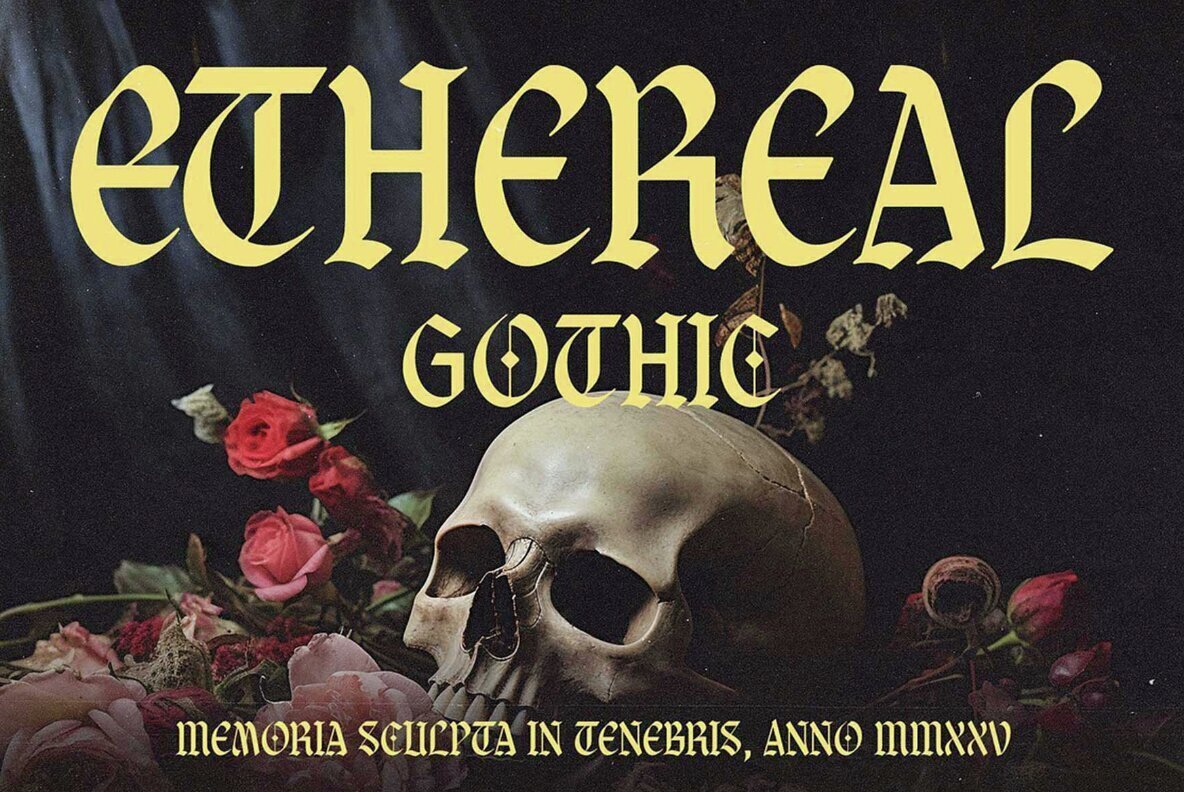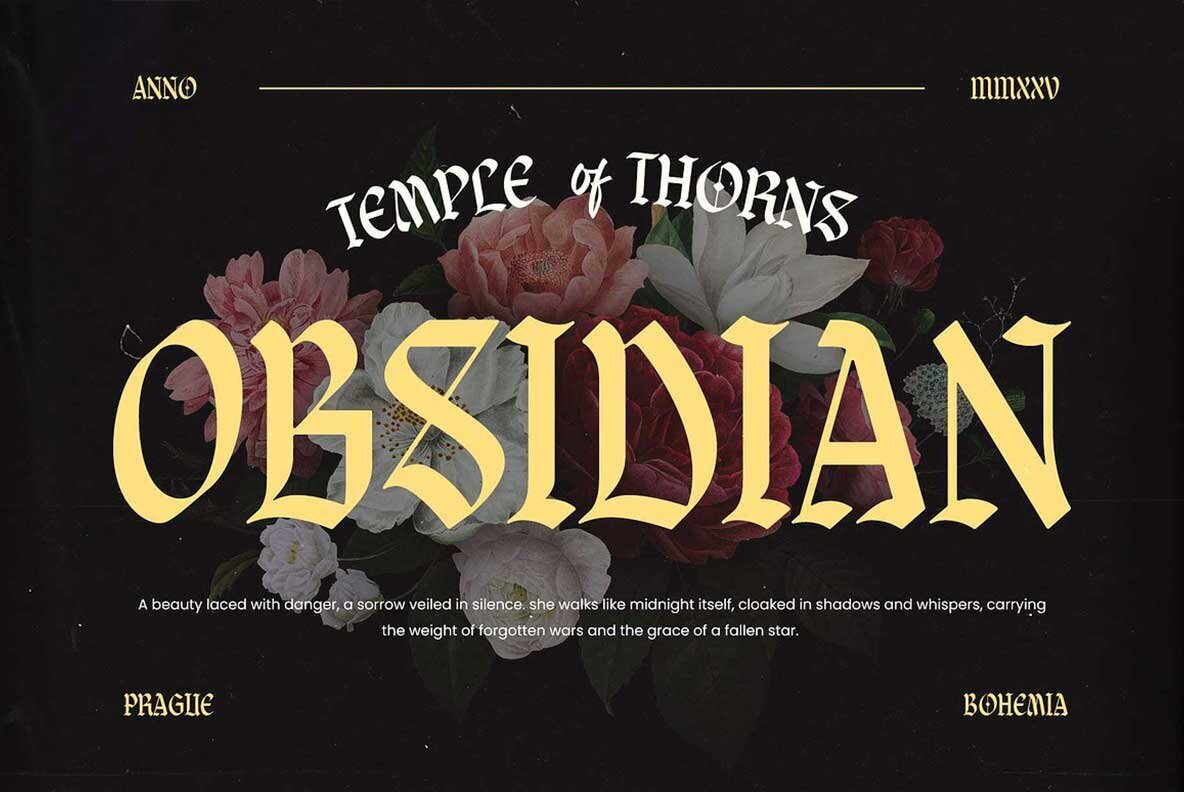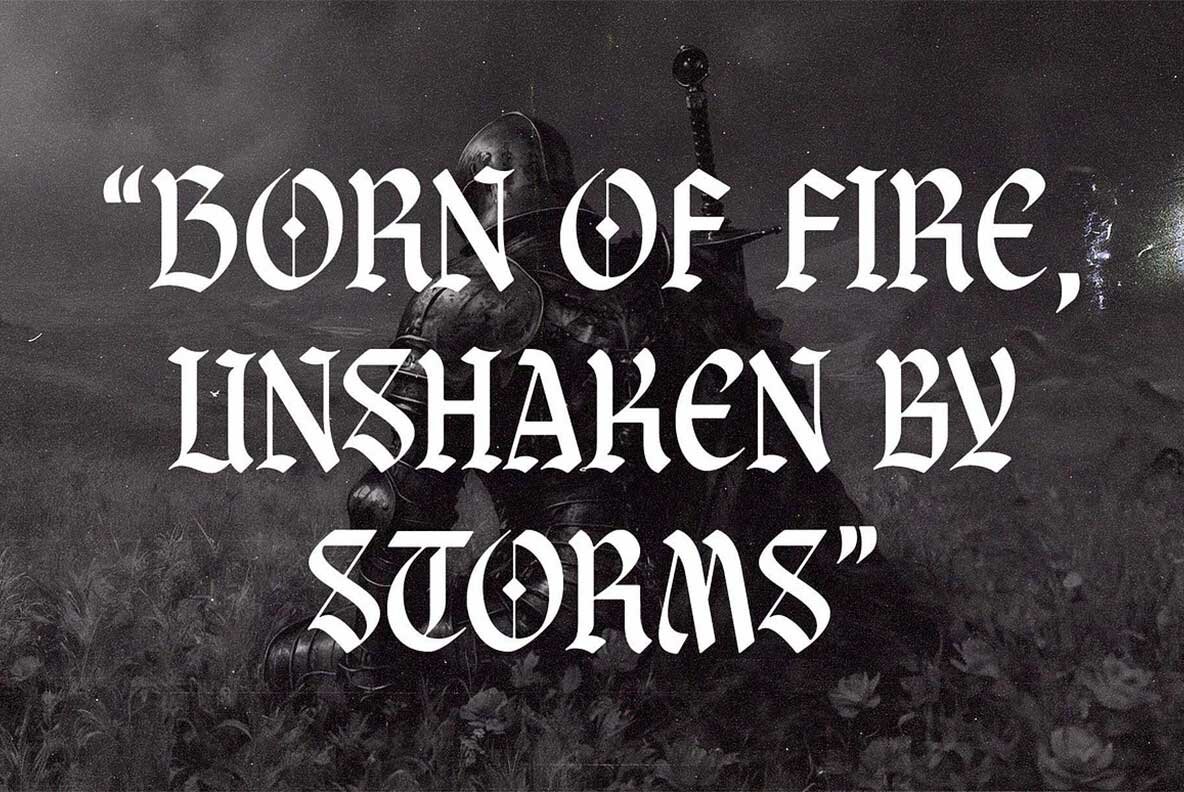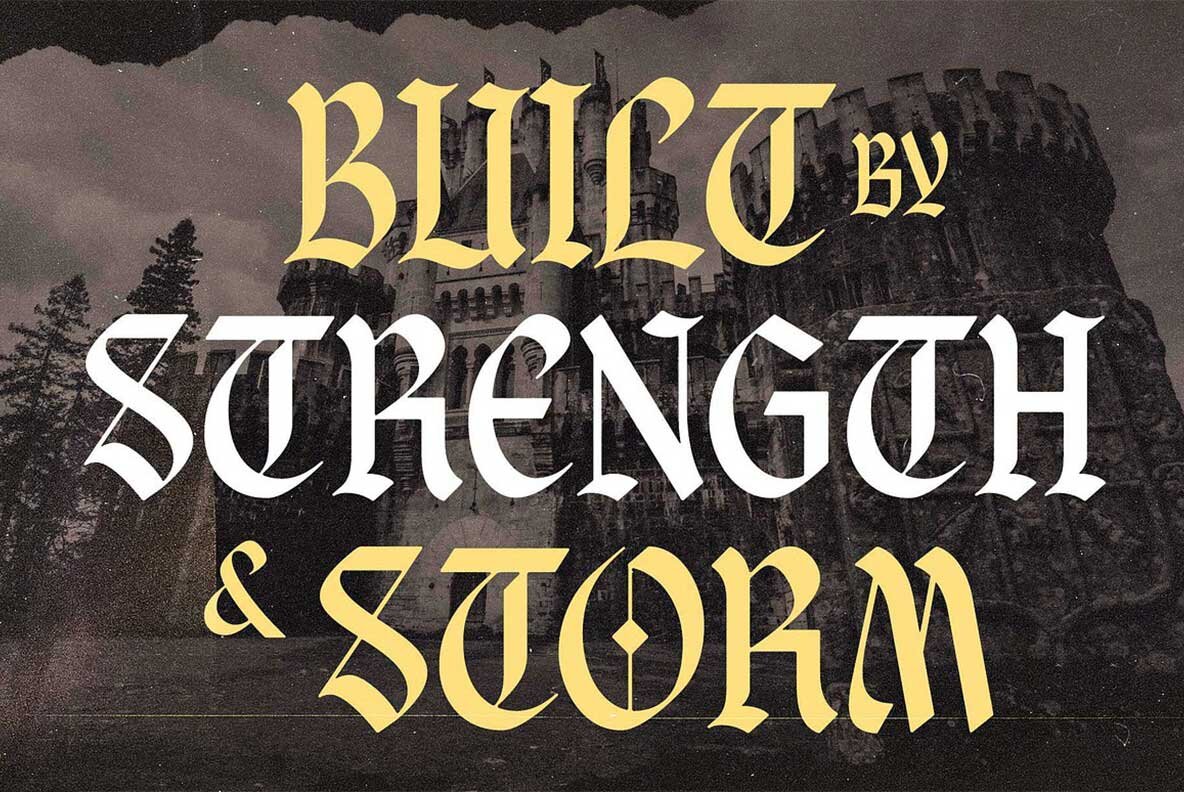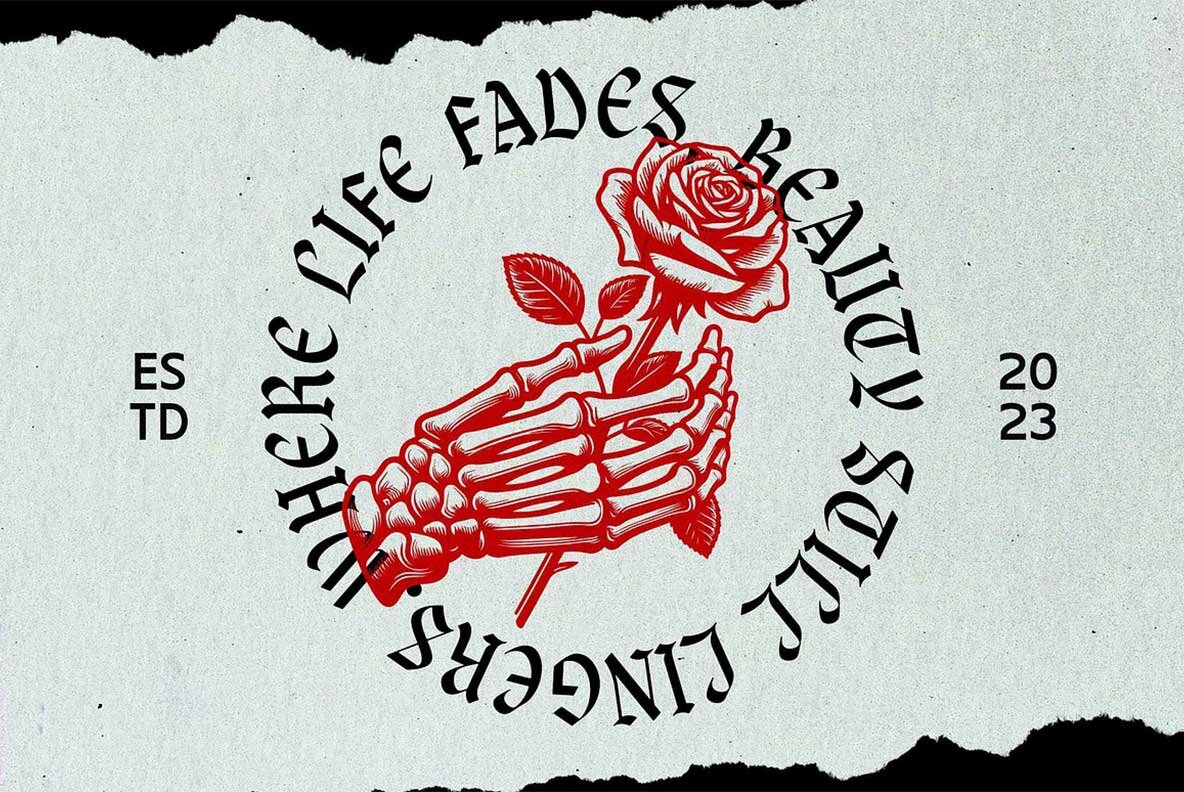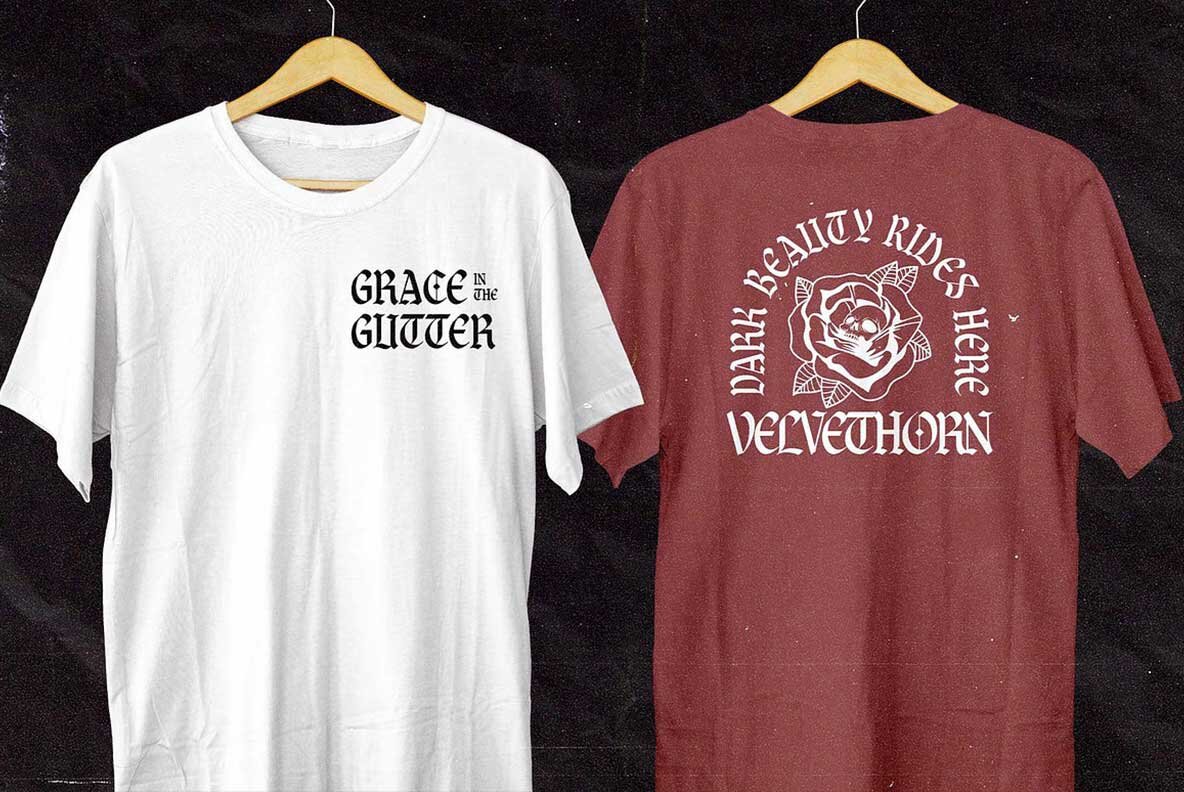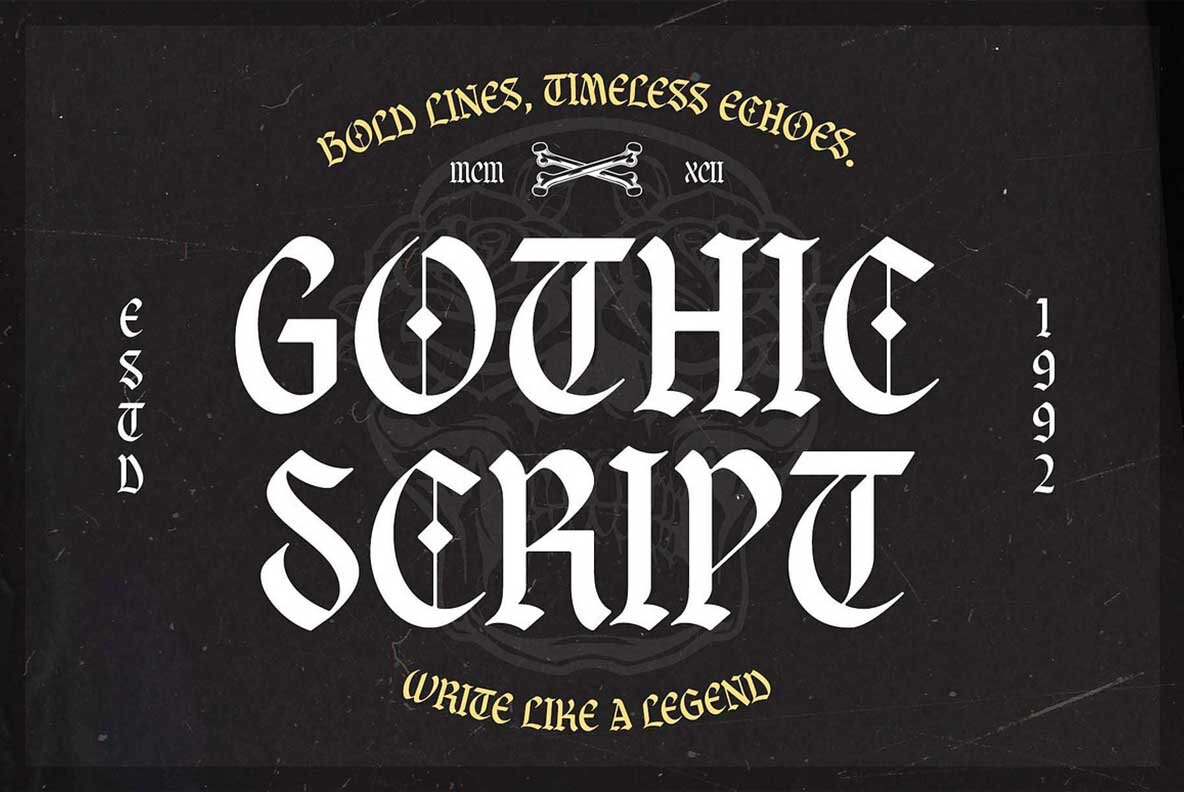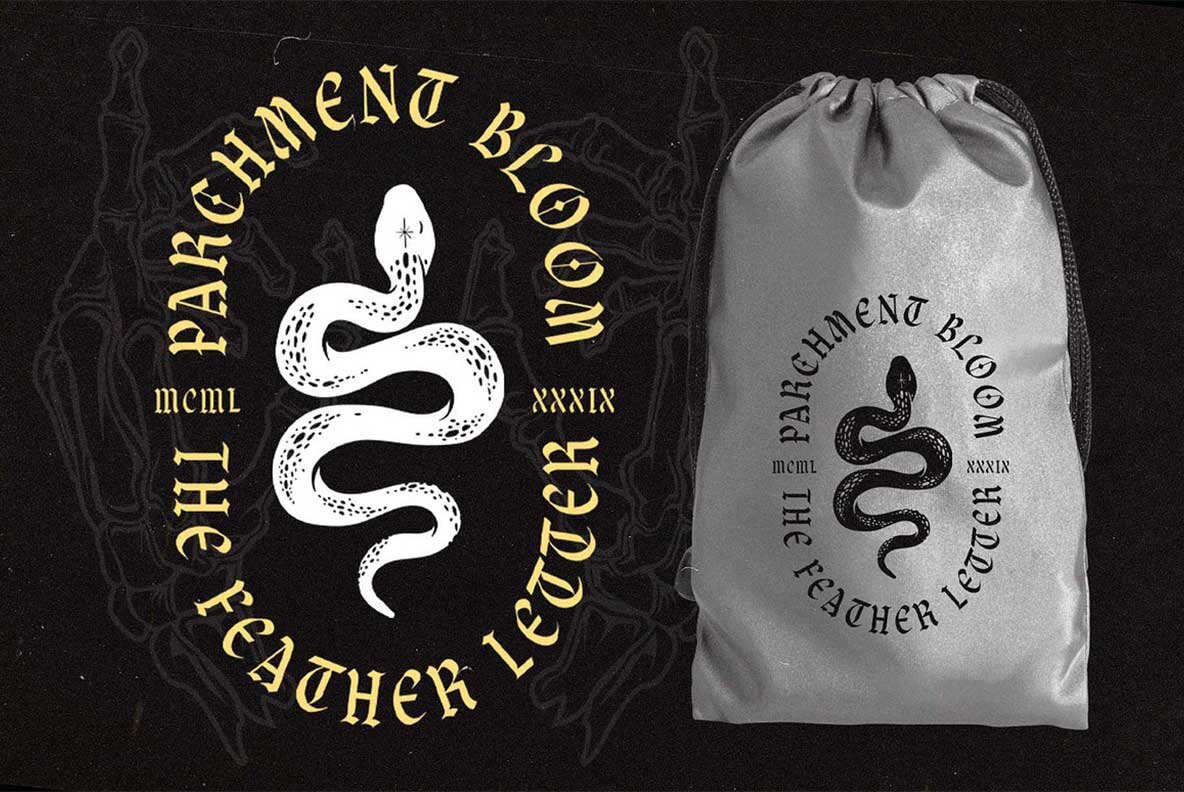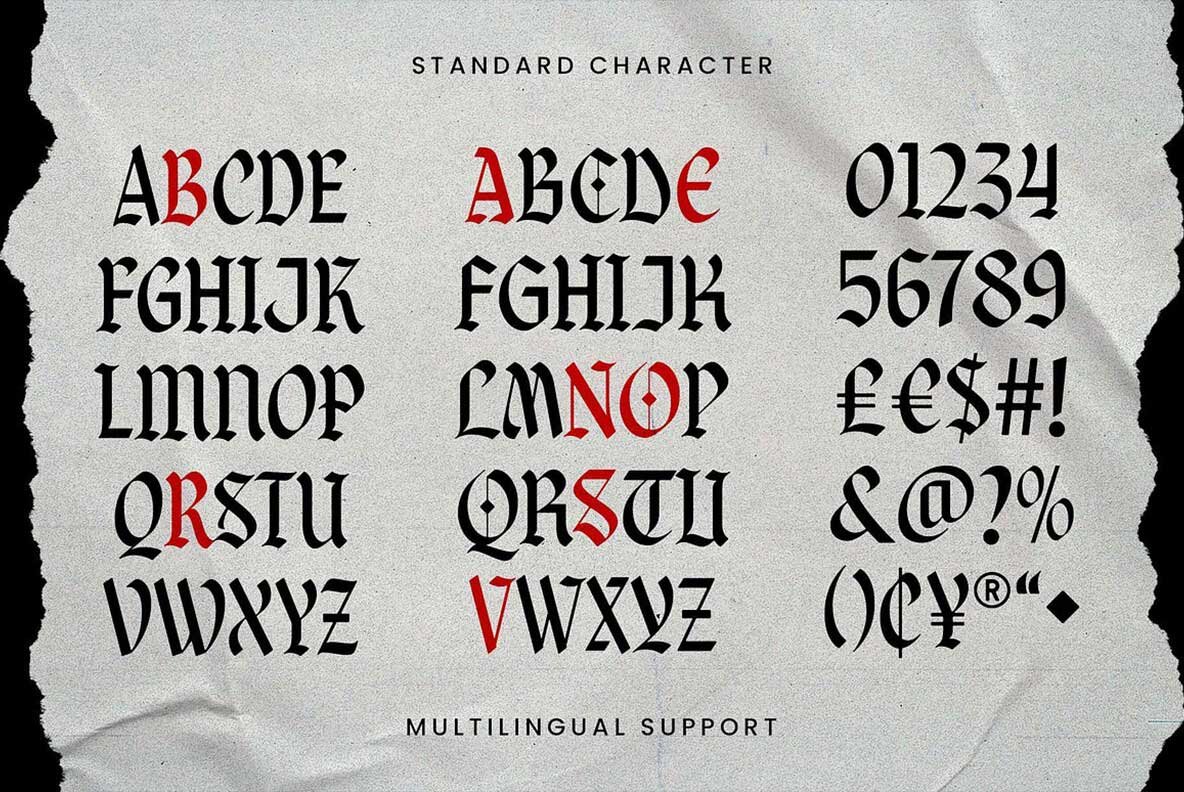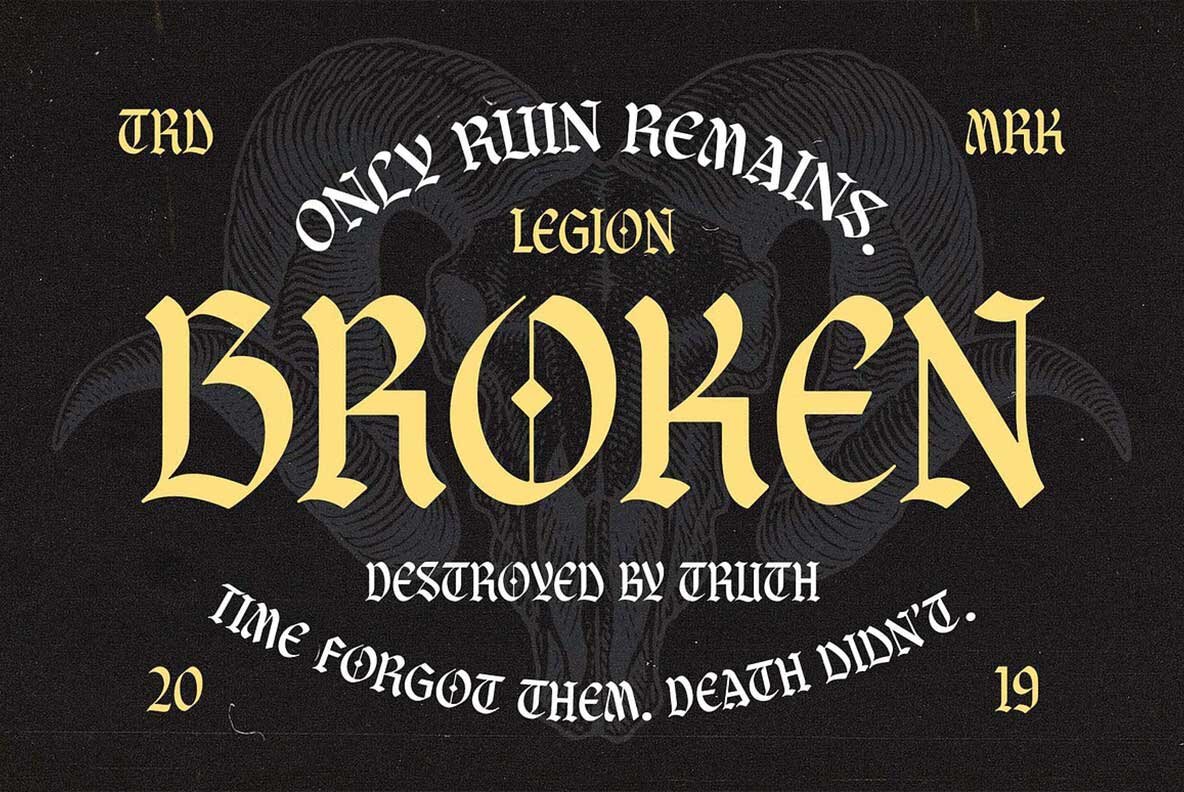
Braveson Font
Braveson Regular
Braveson is a striking all-caps blackletter font, inspired by the aesthetic beauty of vintage and gothic styles. By merging diverse blackletter traditions with minimalist ornamentation, Braveson is crafted to ensure bold and impactful design work. This font exudes strength, spirit, and style, making it ideal for headlines, logos, apparel, illustrations, stickers, posters, and other display purposes.Braveson Font: Vintage Blackletter Style
Features of Braveson Font